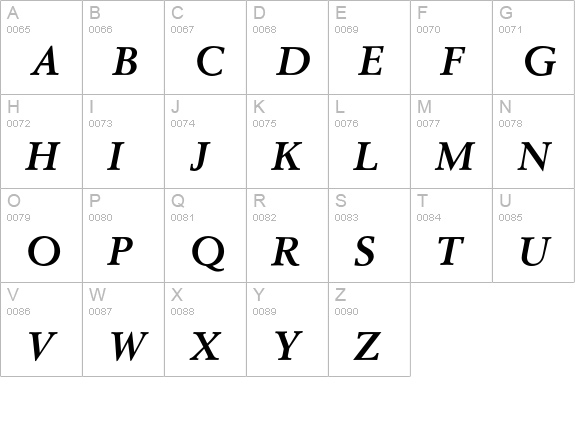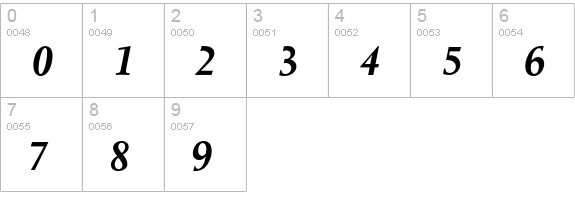
Berling Semi-Bold Italic Font Details
Berling Semi-Bold Italic is a strong, high-contrast, italic variant in the Berling typeface family \xE2\x80\x94 well suited to headlines, attention-grabbing titles, and strong calls-to-action.
Berling Semi-Bold Italic is a versatile and modern font that strikes the perfect balance between elegance and readability. Its sleek and sophisticated design makes it ideal for a wide range of creative projects, from branding to editorial design. The italicized style adds a touch of flair and dynamism to any text, making it stand out with a subtle yet impactful presence. This font is not only visually appealing but also highly functional, ensuring that your message is conveyed with clarity and style. Whether you're designing a sleek logo, crafting a stylish brochure, or creating an eye-catching poster, Berling Semi-Bold Italic is the perfect choice to elevate your designs to the next level. Best of all, Berling Semi-Bold Italic is available for free download at FontsMarket.com. This means that you can easily access this high-quality font without any cost, making it an excellent option for designers on a budget or anyone looking to enhance their projects with a touch of sophistication. Download Berling Semi-Bold Italic today and unleash your creativity with this stunning typeface.